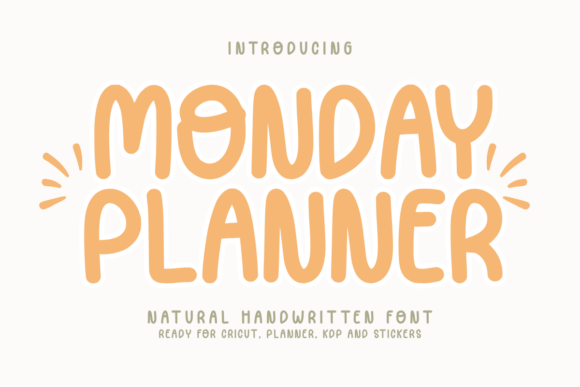
Why Monday Planner Is the Handwritten Font Your Branding Toolkit Needs
I remember the moment clearly. I had just opened a blank brand board for a boutique café project, a small space that wanted to feel like an extension of someone’s living room. Warm wood, handwritten chalkboards, mismatched teacups. The brief called for something personal but not sloppy, friendly but not childish. I pulled up my font library and started cycling through options. Most script fonts felt too formal, too perfect, too much like a wedding invitation. Then I landed on Monday Planner, a cute handwritten font that brings a warm and personal feel to any project. Within minutes, I had a logo concept that actually looked like it belonged on the café’s menu board. That moment convinced me this font deserved a closer look in real branding work.
The Personality Behind the Letters
Monday Planner is a Script Amp font, but it doesn’t lean as heavily into the formal calligraphy territory as many script fonts do. Instead, it carries a relaxed, almost diary-like quality. The letterforms feel human, slightly imperfect in a deliberate way, as if someone sat down with a fine-tip pen and wrote them out by hand. That warmth is exactly why this font works so well for projects that need to feel approachable. It has a gentle rhythm, with soft curves and consistent stroke thickness that keeps it readable even when used at smaller sizes.
The mood is cheerful without being overly cutesy. It has enough structure to feel intentional, but it never crosses into stiff or corporate territory. If I had to describe it in a few words, I would say it feels like a handwritten note from a friend rather than a typed document from a brand. That distinction matters when you are working on identity projects for small businesses, handmade shops, or creative studios that want to show their human side.
Testing Monday Planner Across a Brand Identity
After that initial logo draft for the café, I decided to push Monday Planner further. I dropped it onto a brand board alongside a clean sans serif, a subtle serif, and a few accent colors. The font held its own in the headline position, especially for short phrases like the café’s tagline. It also worked beautifully on a packaging mockup for a small batch of coffee beans. The handwritten quality made the label feel like it was hand-stamped, which is exactly the kind of authenticity a local roaster wants to communicate.
On a business card mockup, Monday Planner performed well for the business name and a short descriptor, but I would not recommend it for long addresses or dense contact information. At smaller sizes, some of the handwritten quirks can make extended text harder to read, especially if the card is printed at a standard business card size. That is a common limitation with handwritten fonts, and Monday Planner is no exception. Use it for the parts of the design that need to carry emotion and leave the functional details to a cleaner companion typeface.
For social media graphics, Monday Planner shines. I tested it on an Instagram post mockup for a skincare brand that wanted a natural, organic feel. The font paired well with botanical imagery and soft pastel backgrounds. The headline stood out without overpowering the visual, and the handwritten look felt more genuine than a standard display font would have. In stories and short-form content, it reads quickly and leaves a friendly impression.
Where Monday Planner Excels as a Display and Accent Font
After working with Monday Planner across multiple touchpoints, I can say it is best used as a display font, headline font, or accent typeface. It is not designed for long body paragraphs, dense editorial layouts, or formal corporate documents. The charm comes from its handwritten personality, and that personality gets diluted when you try to use it for large blocks of text. Instead, think of it as the voice for your brand’s most important words: the shop name, the tagline, the product name, the invitation line, the sticker message.
It works exceptionally well on physical products. I tested it on a t-shirt mockup for a handmade shop, and the lettering felt like it was drawn directly onto the fabric. For Cricut craft projects, where you want a natural, hand-lettered look without spending hours drawing each letter, Monday Planner saves time while delivering that authentic aesthetic. It also fits naturally into KDP interiors for planners, journals, and guided notebooks. The font’s name is not accidental, it genuinely feels like it belongs on the pages of a weekly planner.
Font Pairing Suggestions for Monday Planner
No font works in isolation, and Monday Planner benefits from thoughtful pairing. During my testing, I found it paired well with a clean sans serif for body text and supporting details. A neutral sans like a geometric or humanist style provides enough contrast to let the handwritten warmth stand out without clashing. For a more editorial feel, a light serif in body text can create a nice rhythm, with Monday Planner handling the headings and accent lines.
I also experimented with pairing it alongside another handwritten font, but I would caution against that approach unless you are very deliberate about the contrast. Two handwritten fonts can easily compete for attention unless they clearly serve different roles. A better strategy is to use Monday Planner as the sole handwritten voice and let your supporting typeface handle readability and structure. That keeps the brand identity cohesive and prevents visual clutter.
Use it where it counts, pair it thoughtfully, and always test it in context. Handwritten fonts like this one are tools for connection, and when you use them well, they make people stop and feel something. That is the kind of design work that sticks.